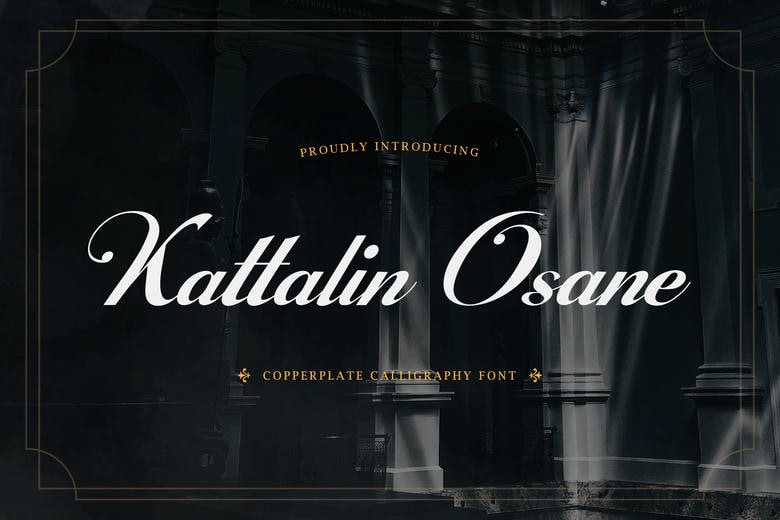
Kattalin Osane Font
Kattalin Osane is a calligraphy typeface based on copperplate with a high contrast stroke, flowing connection and exquisite swash. This typeface is based on the formal script and has both upper and lower letters as well as numerals, punctuation, stylistic alternatives, ligatures, and multi-lingualism.
The letterforms are done on the traditional calligraphic rhythm with elegant curves and long entry and exit strokes that it is applicable in wedding invitations, branding projects, editorial headlines, packaging design and high end display compositions.
Kattalin Osane is clear but still retains the expressive movement of copperplate script, which makes it work equally effectively in both large headline and more sophisticated identity typesetting.
Kattalin Osane Calligraphy Script Font